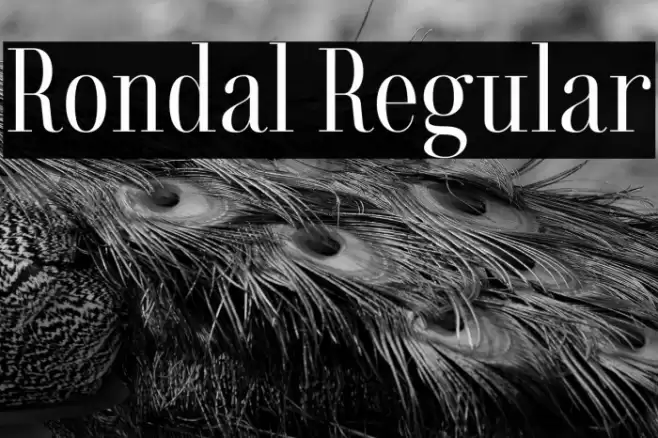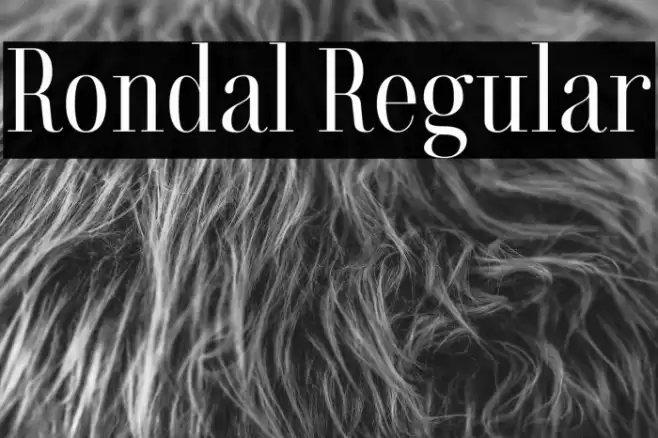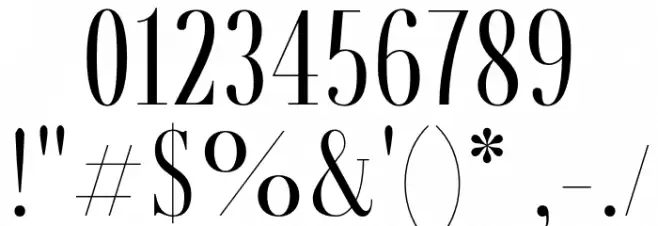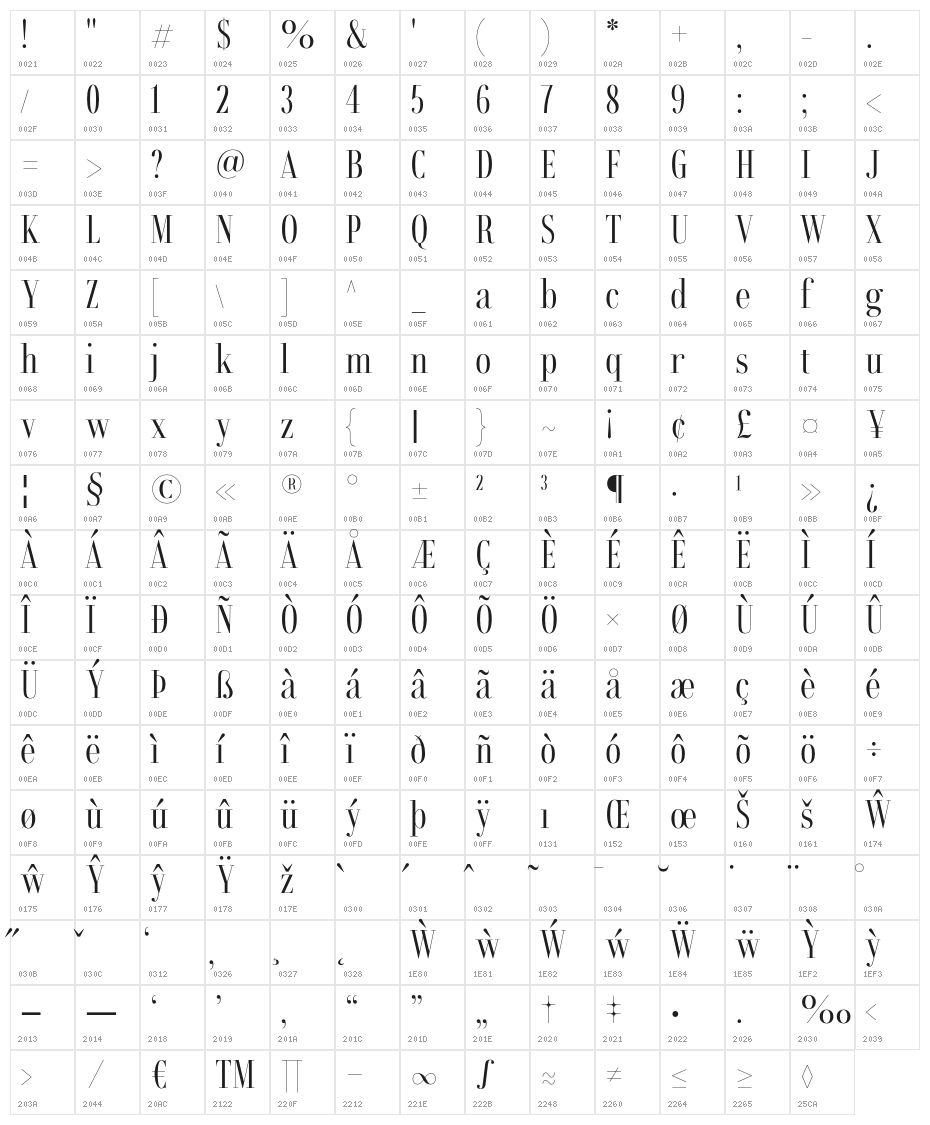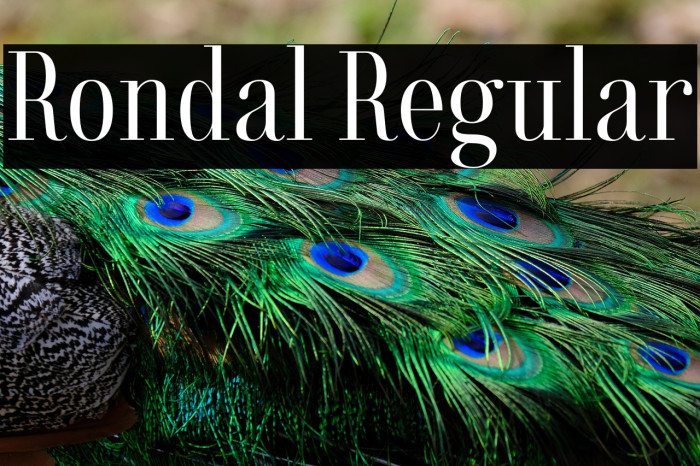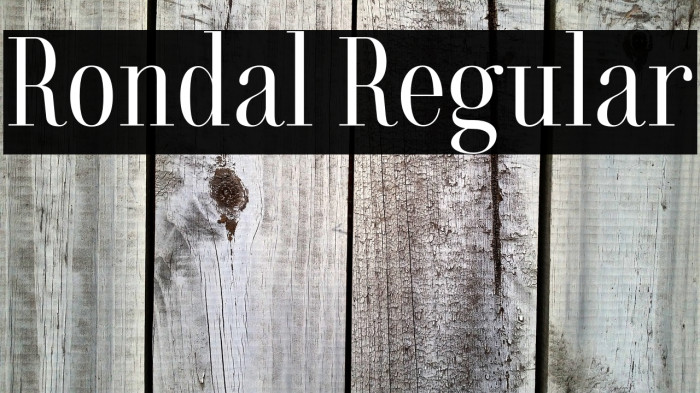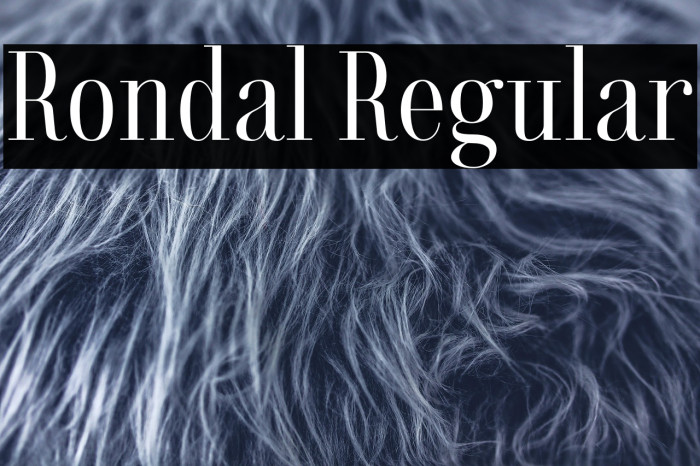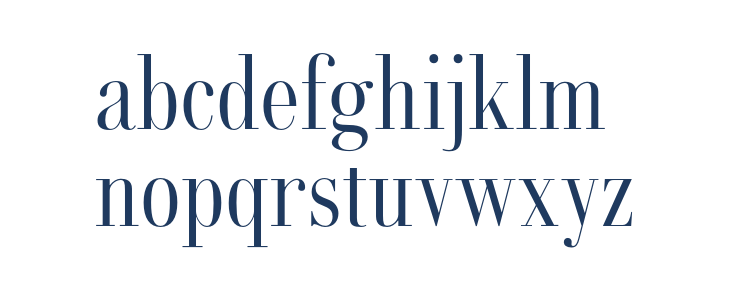
Rondal Regular Font
Rondal Regular Description
This font features a classic serif style with elegant, elongated strokes and a refined appearance. The uppercase letters are tall and narrow, giving a sophisticated and formal look. The lowercase letters maintain a consistent style with smooth curves and sharp serifs. The numerals are proportionate and align well with the overall design, ensuring readability. Special characters are crafted with attention to detail, maintaining the font's cohesive aesthetic. The font's contrast is high, with thin horizontal strokes and thicker vertical lines, enhancing its readability and visual appeal.
A classic serif font with high contrast and elegant, elongated strokes from Regular fonts.
- Proposed Projects: Ideal for editorial design, book covers, formal invitations, and luxury branding.
- Overall Style: Classic